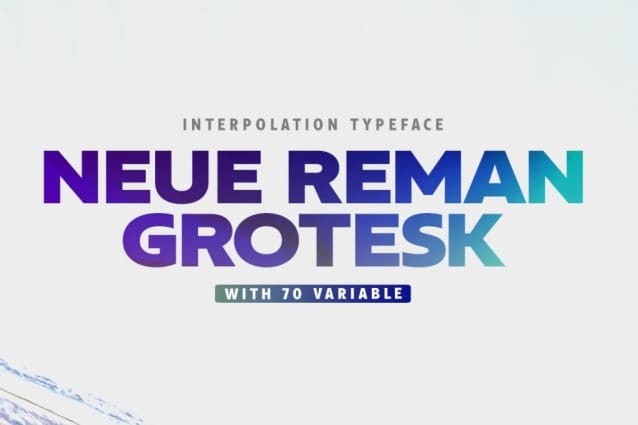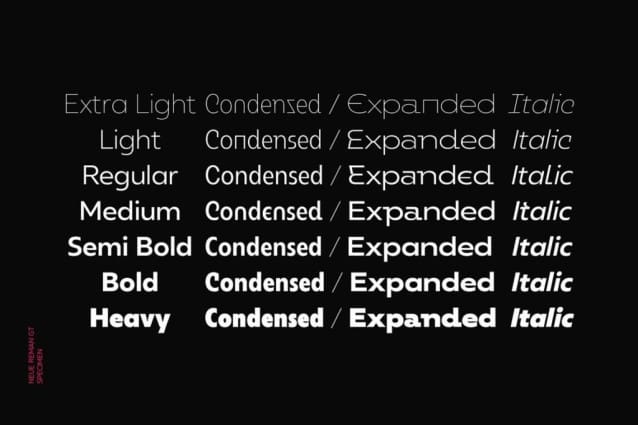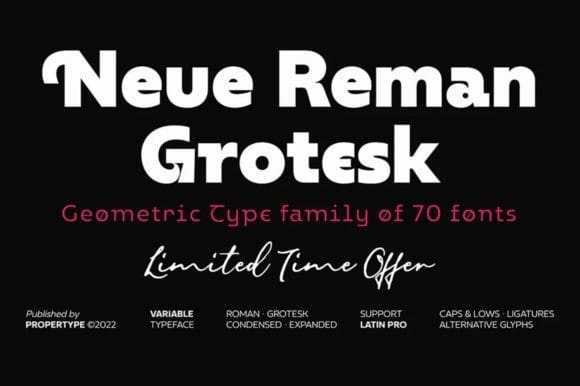
Neue Reman Gt Font Family
Neue Reman Gt Font Family,   It has 70 font styles in total family + 1 Variable. This typeface is designed to be used very practically. Each style can be changed easily. Has a variety of alternative letters that can be selected to make typography designs more attractive.
The family comes in 7 weights with matching italics + Variable Font File and includes multilingual latin pro characters.